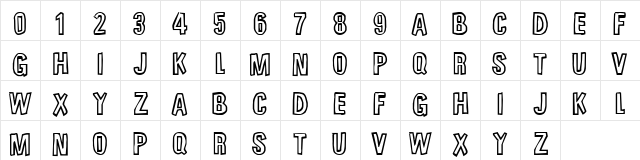
us Regular Font Preview
us Regular
us Regular Font Details
Design Context for us Typeface
us is a composed and adaptable typeface that performs quietly and consistently across a wide range of design contexts.